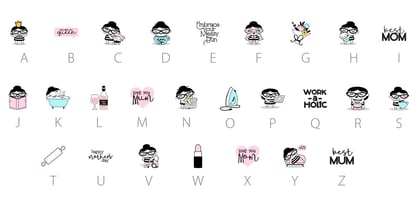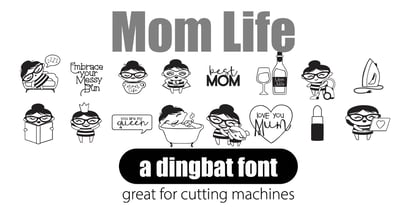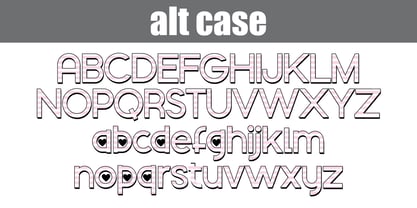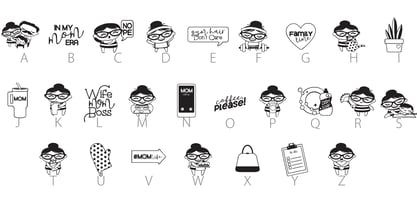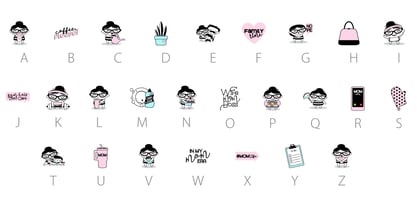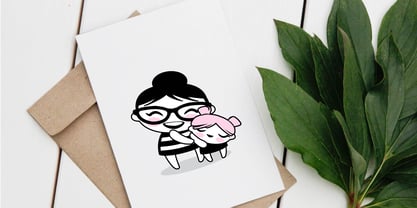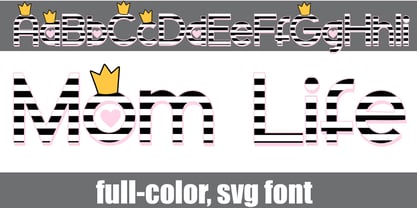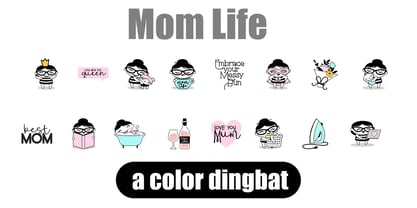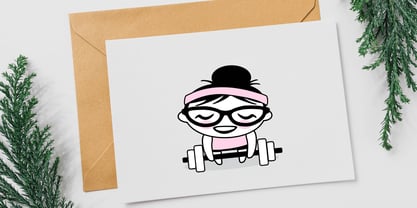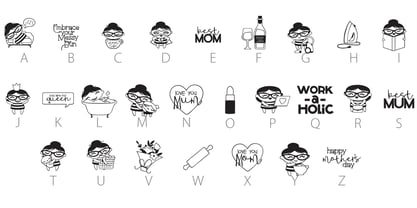
Mom Life
by Illustration Ink
The Mom Life Font Family was designed by Illustration Ink and published by Illustration Ink. Mom Life contains 6 styles and family package options. More about this family
The Mom Life Font family includes one regular sans serif font, one full-color, svg font, two regular dingbats, and two full-color dingbats featuring the cutest moms living their lives. The full-color font has an alt case of additional styles of each letter that you can access through your system glyph map.
Full-color SVG fonts are the perfect way to add a touch of personality to your designs. With a full range of colors and styles to choose from, you can create anything from simple text logos to complex illustrations. Plus, SVG fonts are vector-based, so they can be scaled to any size without losing quality.